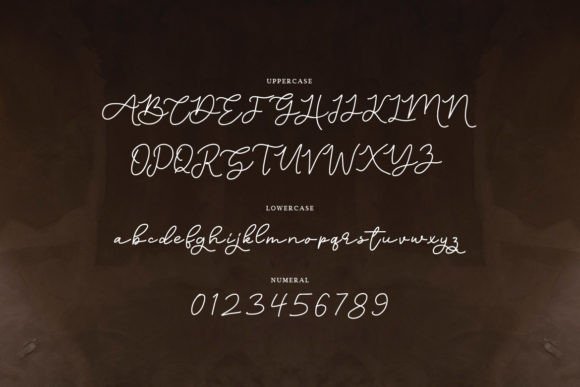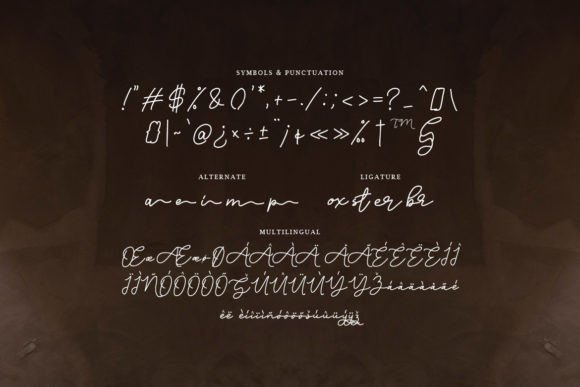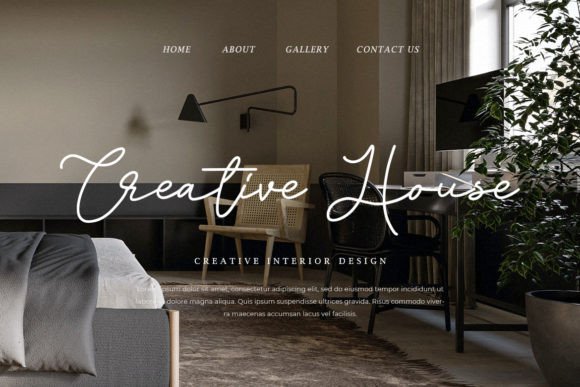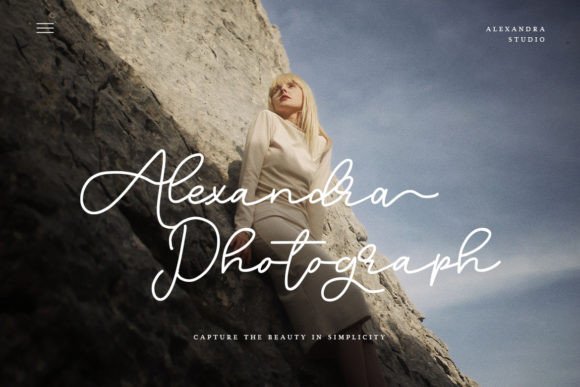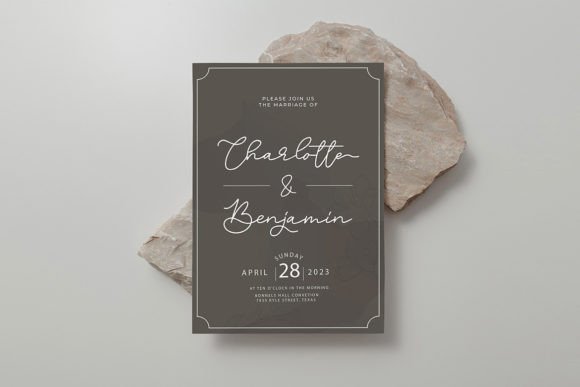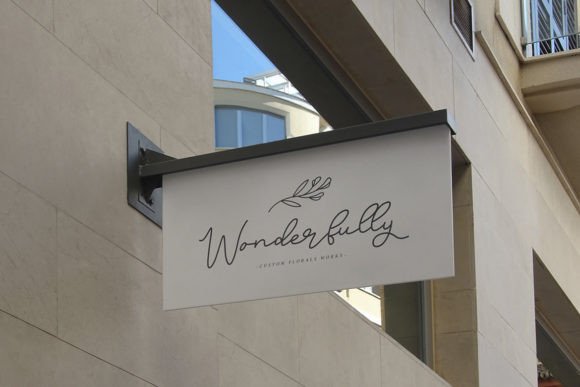
Unlocking Unique Style with the Haymone Font
Have you ever been stuck in a design rut, searching for that one font that elevates your entire project? You know, that moment when you’re pouring over font libraries, trying to find the perfect combination of elegance and sophistication. It’s a feeling we’ve all been there, and it’s what makes the discovery of a new, game-changing font so exhilarating.
Meet the Haymone Font, a beautifully crafted typeface designed to add a touch of authenticity to your designs. Perfect for logos, product packaging, and wedding invitations, this font is sure to take your projects to the next level. With its unique signature style, the Haymone Font is a valuable addition to any designer’s toolkit.
Whether you’re a seasoned pro or just starting out, the Haymone Font is an essential resource for any creative looking to add a little extra oomph to their work.
Haymone Font Key Features
- Font Family: Haymone, Haymone Bold, Haymone Italic, Haymone Bold Italic
- Unique Characteristics: Haymone features a unique blend of modern and vintage elements, with a distinctive x-height and subtle flair on the letterforms, making it suitable for a wide range of applications, from body text to display typography.
Haymone Font Review
As a designer, I was excited to try out the Haymone font. Here’s my honest review.
- The Haymone font has a unique and elegant feel to it, perfect for high-end branding and luxury products.
- The font is highly legible, even at smaller font sizes, making it great for body text.
- The font family includes a wide range of weights and styles, making it easy to find the perfect match for your project.
- The font may not be the best choice for digital displays, as it can appear pixelated at small sizes.
- The font’s elegance may come across as too formal or even stuffy in some contexts.
- The font family is not as extensive as some other popular fonts, which may limit its versatility.
The Haymone font is a solid choice for high-end branding and print materials, but it may not be the best fit for digital projects or more casual designs. With some careful consideration of its limitations, the Haymone font can add a touch of sophistication and elegance to your designs.
Getting the Most Out of Haymone Font
Use the Haymone Font to add a touch of elegance and sophistication to your designs. Pair it with bold colors and clean lines for a modern look.
Experiment with different font sizes and styles to create visual interest and hierarchy in your design.
The Haymone Font is perfect for:
Brand logos and marketing materials
Editorial and literary publications
High-end product packaging and design
Open Sans is a modern sans-serif font that is highly legible and versatile. It is suitable for body text and headings, and its clean design makes it ideal for digital design projects. Open Sans is a great alternative to Haymone Font as it offers a similar level of legibility and is more widely supported by most operating systems.